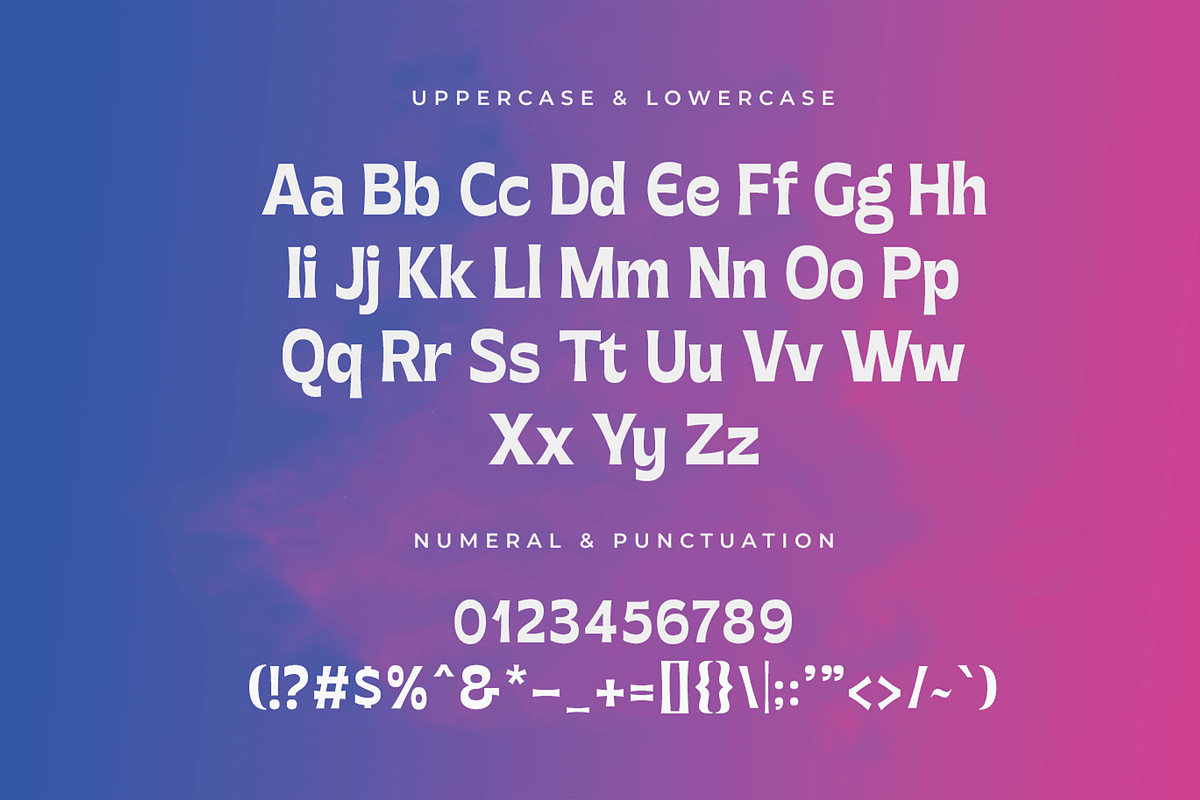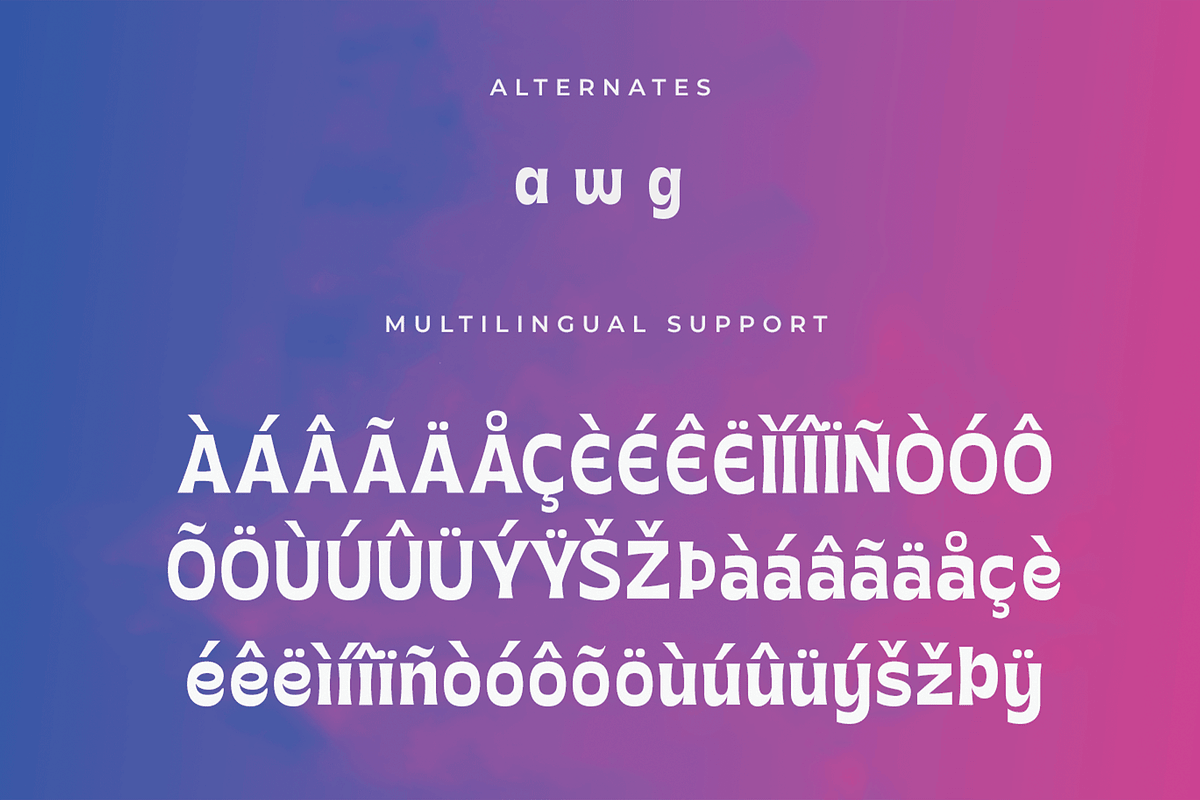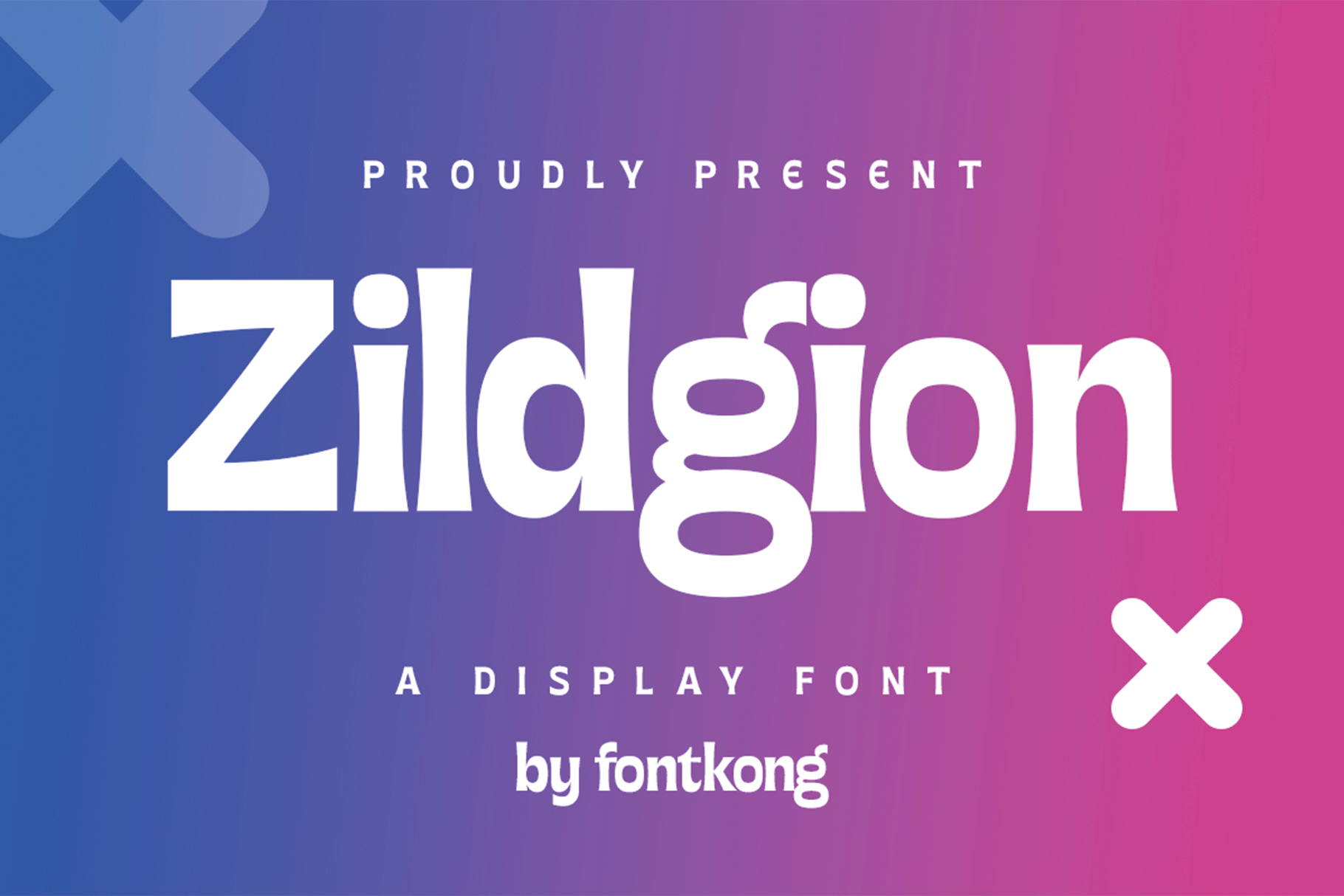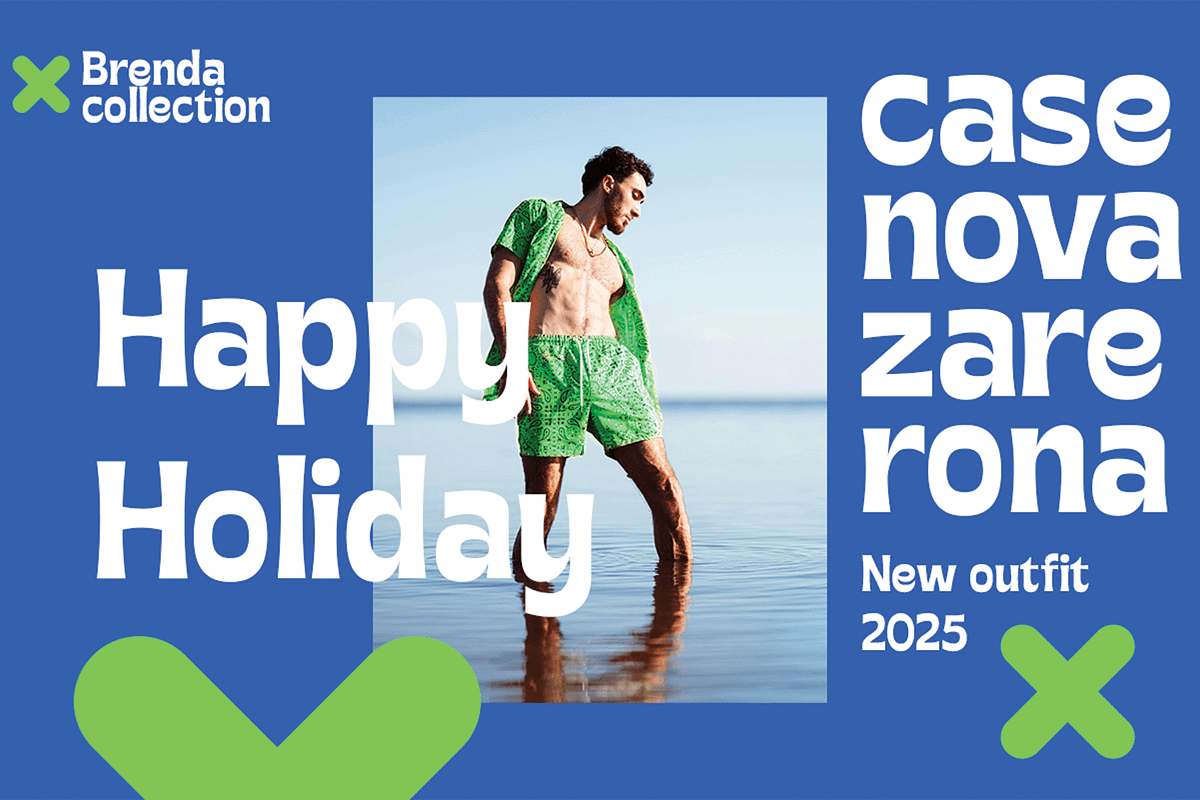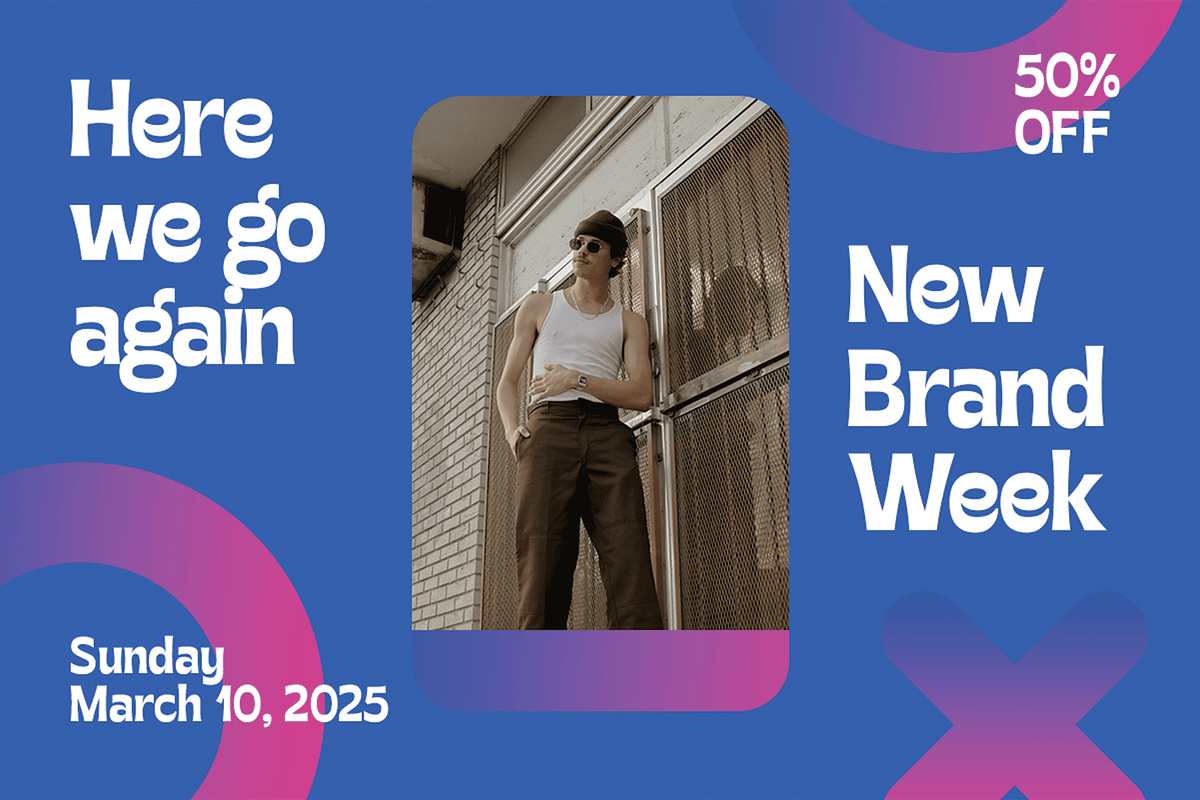
Zildgion – A Bold Display Font
Zildgion is a striking display font designed to command attention with its bold and impactful letterforms. Crafted for eye-catching designs, this typeface is perfect for posters, headlines, branding, logos, and editorial layouts that need a strong visual presence.
With its powerful geometric shapes and modern aesthetics, Zildgion delivers a contemporary yet timeless feel. The font includes uppercase and lowercase letters, numerals, punctuation, and multilingual support, ensuring versatility across various creative projects.
Whether you're working on dynamic advertising, edgy apparel designs, or standout packaging, Zildgion guarantees a bold and unforgettable impression.